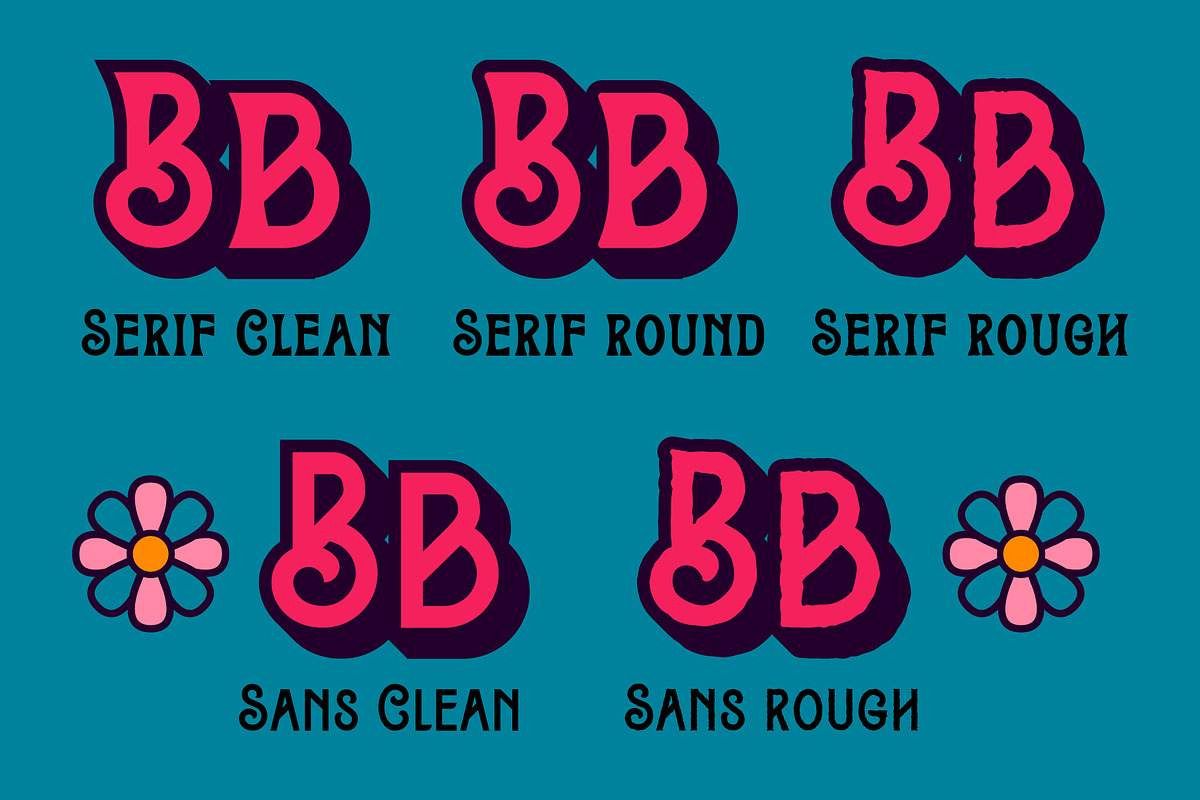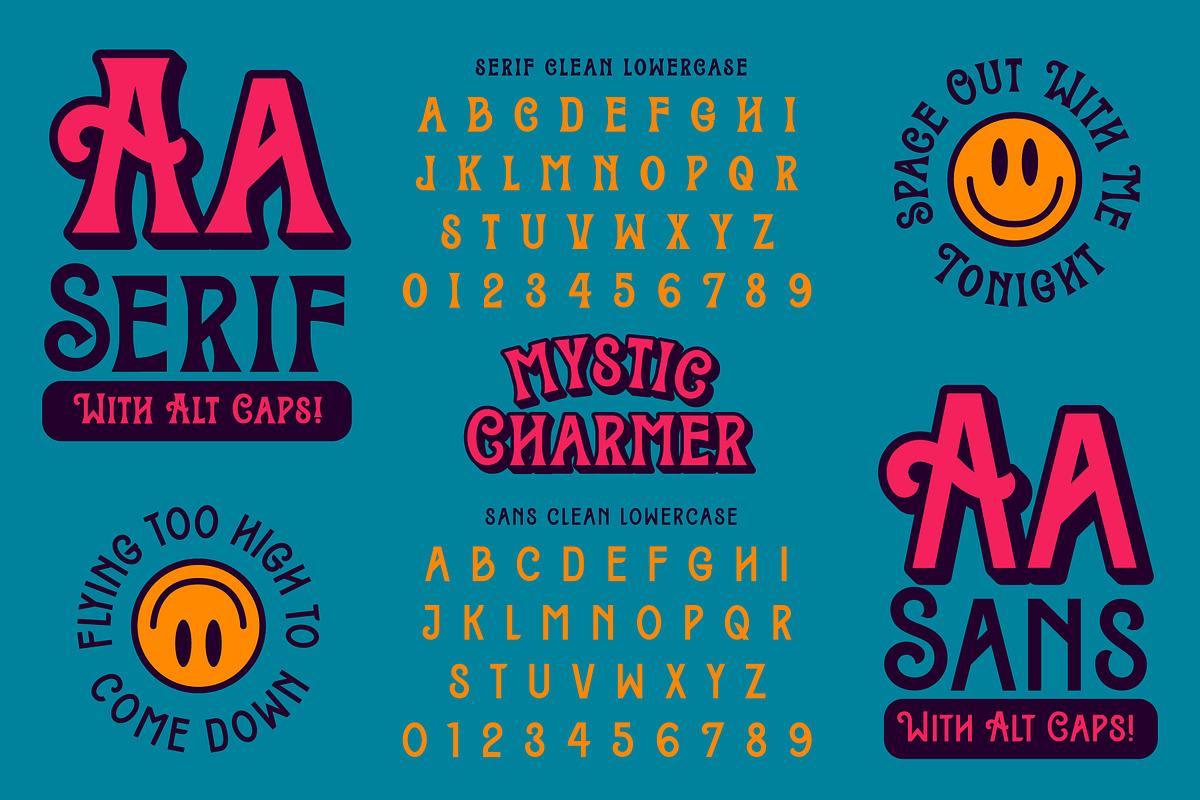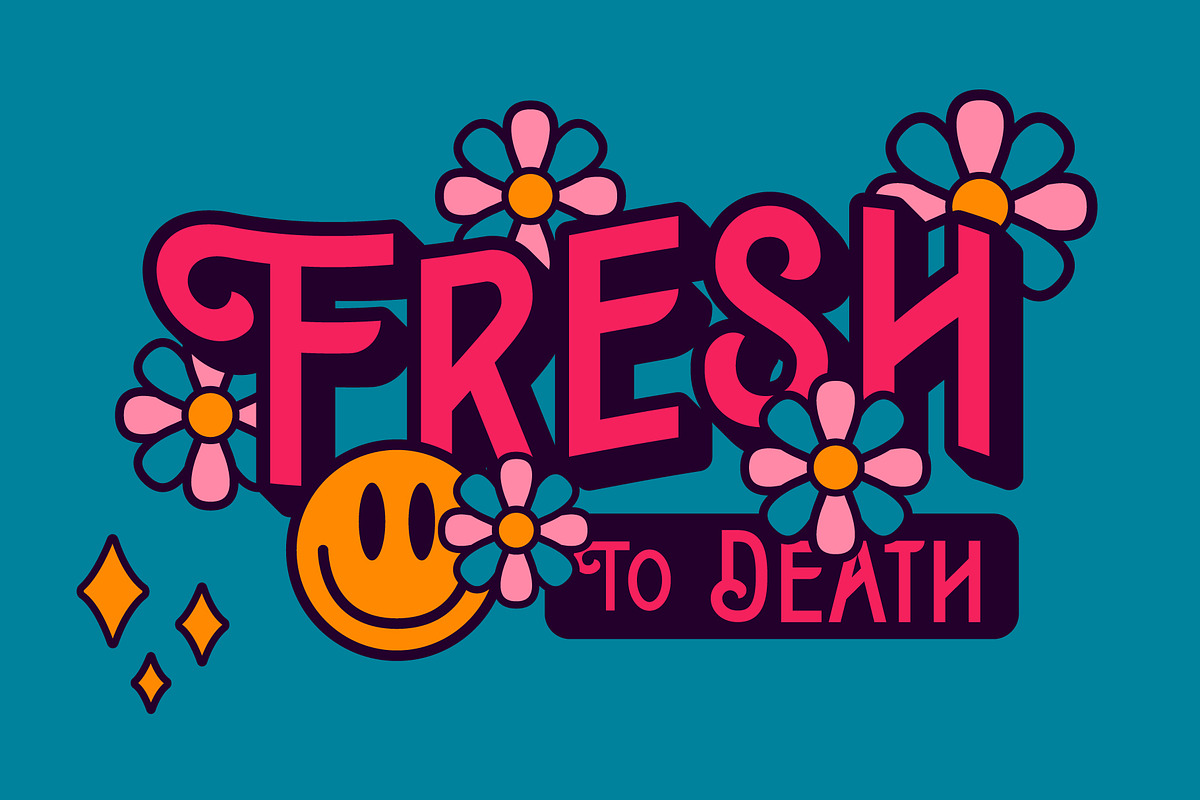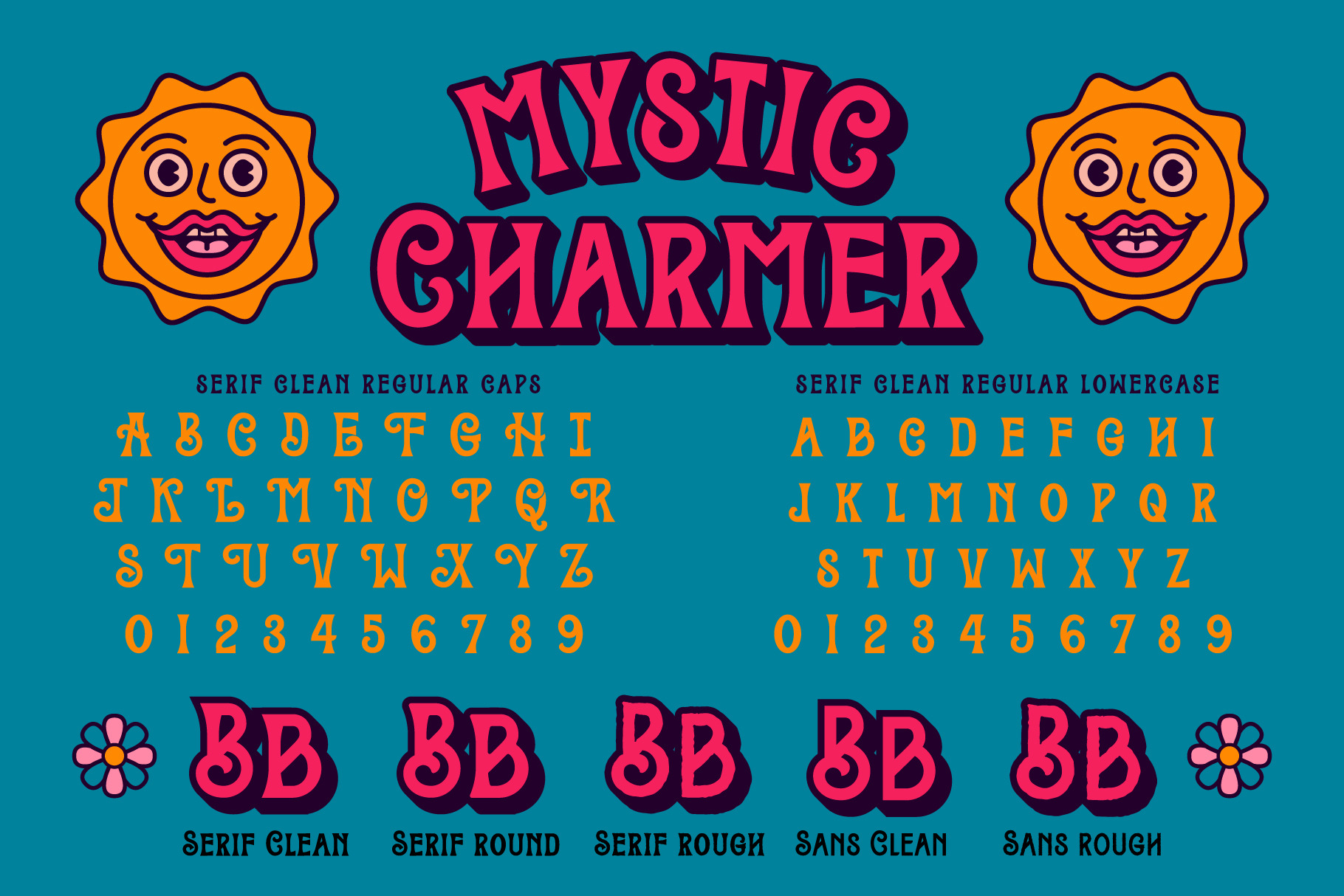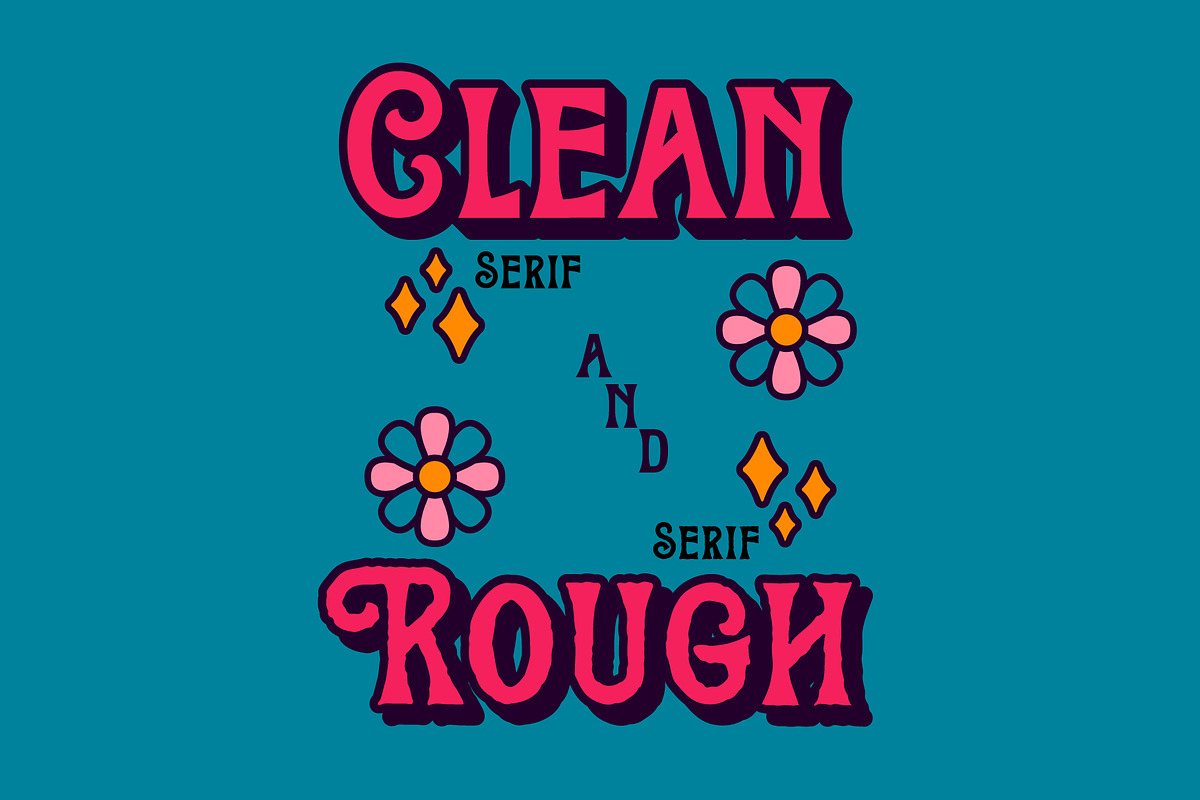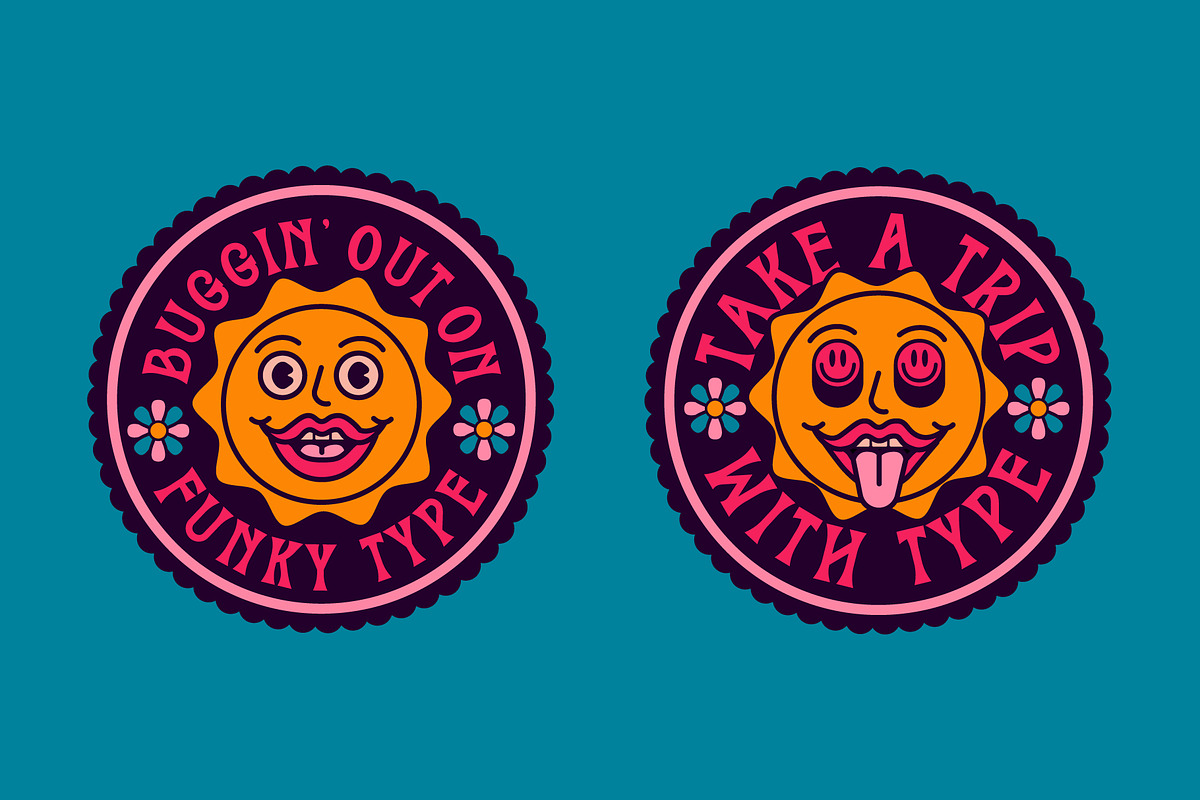
Mystic Charmer Font Family
Mystic Charmer is a little bit funky, a little bit elegant and a whole lotta flair.
5 FONT STYLES. Serif comes in Reg, Rough and Rounded. Sans comes in Reg, Rough. Alternative Cap letters for the whole alphabet on each style. Numbers and punctuation included.